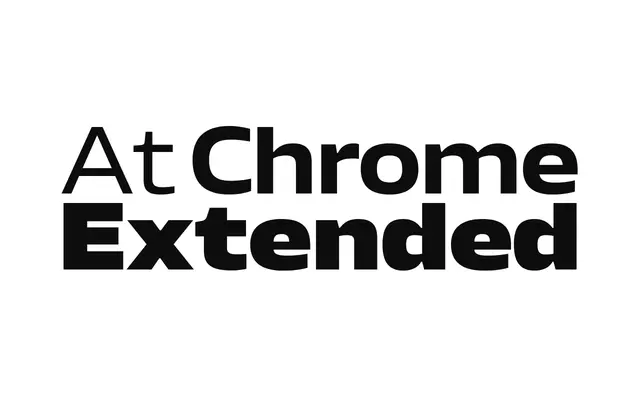
At Chrome Extended
A geometric sans from Arillatype designed for digital screens, spanning nine weights from Air to Super with a dedicated Retina cut for high-density displays.
Designed by Pedro Arilla and Julián Moncada and released in January 2026, the family runs 18 styles across nine weights from Air to Super, each with a matching italic. A Retina weight is optimised specifically for high-density screens, and the full purchase includes variable font files. Eight stylistic sets cover alternate letterforms for a, f, g, i, j, l, t and y, alongside a broad OpenType feature set including fractions, scientific inferiors and tabular figures.
A sharp, contemporary sans-serif with geometric underpinnings and a warm digital sensibility. The wide weight range and screen-optimised Retina cut place it firmly in the geometric sans tradition.